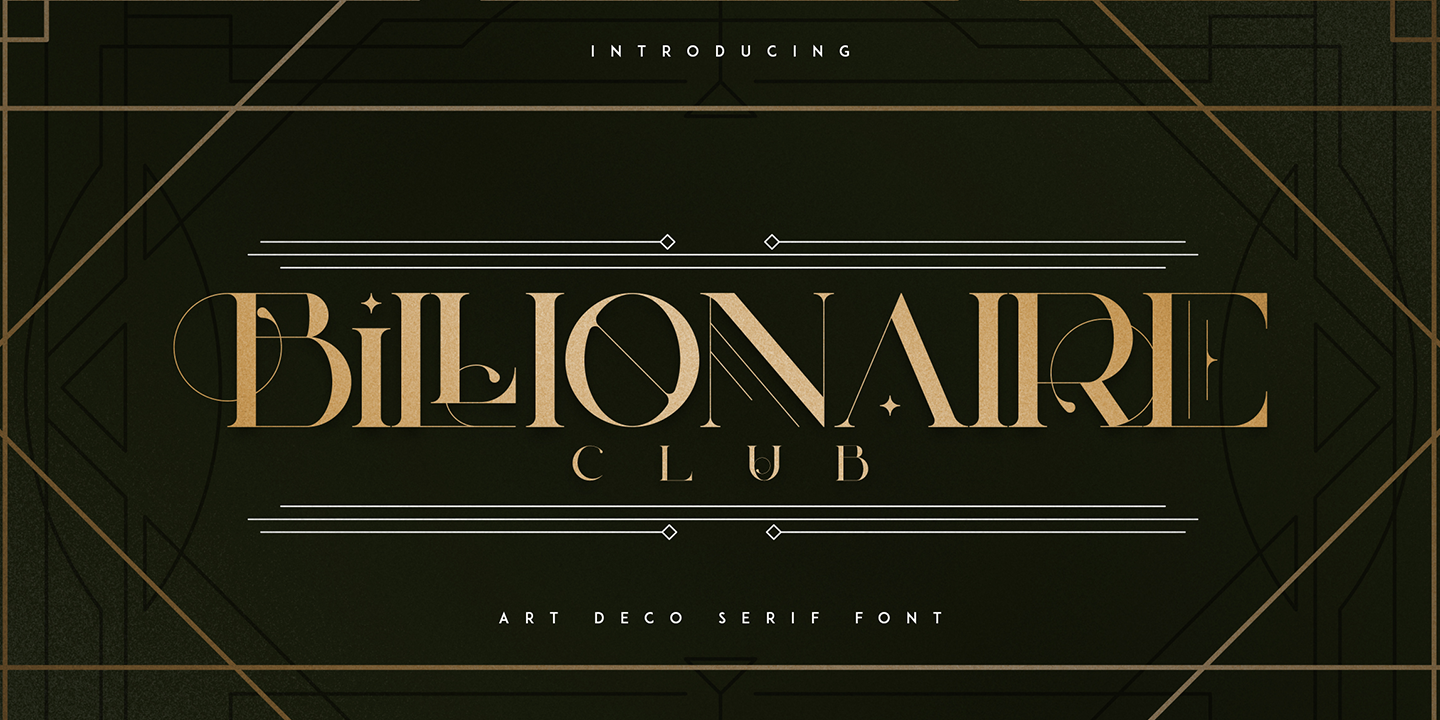
Billionaire Club Font is perfect for ultra-luxury design projects including exclusive private clubs, elite financial services, premium investment firms, luxury yacht clubs, high-end real estate developments, billionaire lifestyle magazines, exclusive membership organizations, and ultra-wealthy marketing campaigns. This prestigious typeface excels in private banking institutions, luxury concierge services, elite country clubs, exclusive auction houses, and projects that celebrate ultimate wealth and exclusive privilege.
What makes Billionaire Club Font exciting is its opulent elite character that perfectly captures the essence of extreme wealth and exclusive sophistication. The font features commanding letterforms with platinum-level styling that reflects the absolute power and unlimited resources of billionaire status. Its ultra-luxury design elements embody the spirit of extreme affluence and exclusive access, making it perfect for projects that need to convey ultimate wealth, exclusive privilege, and connection to billionaire lifestyle. The carefully crafted platinum details create an atmosphere of limitless luxury and exclusive sophistication.
Billionaire Club Font comes in multiple family variations including platinum, elite, exclusive, and ultra-luxury styles. Each weight maintains the distinctive billionaire character while offering different levels of wealth intensity and exclusive presence. The font family includes elite alternates, platinum ligatures, and billionaire variations that provide designers with comprehensive options for creating truly opulent and authentically exclusive typographic compositions that celebrate ultimate wealth.